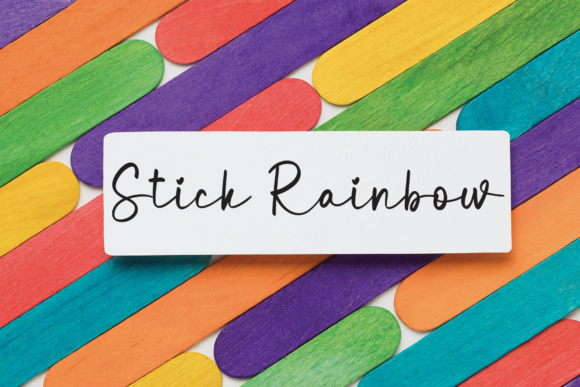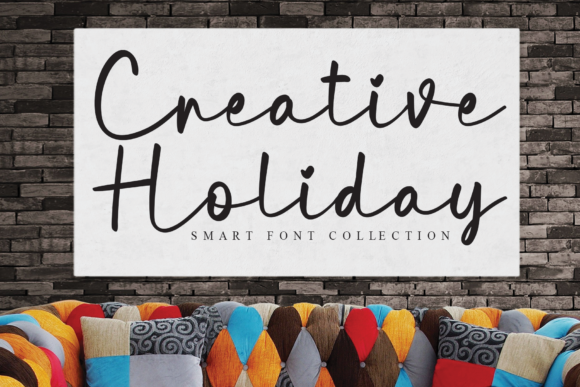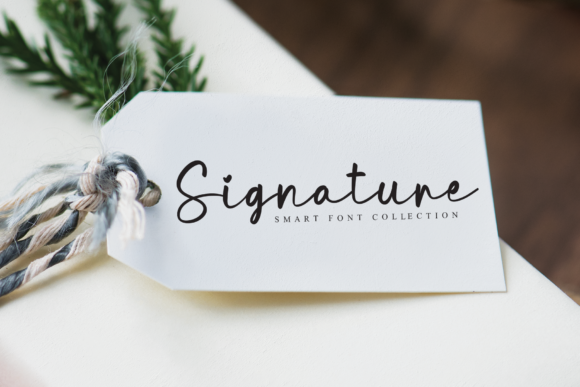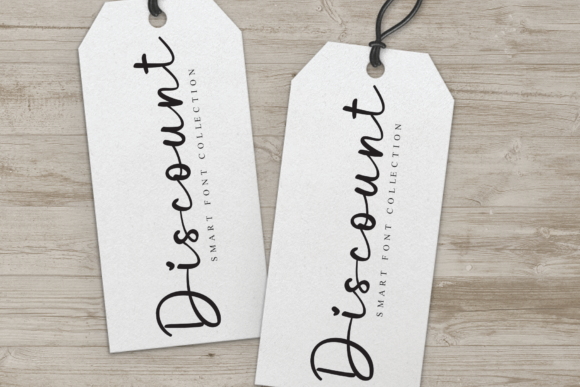
Introducing Farmhouse Font: The Whimsical Script Font for a Relaxed Theme
Are you a designer or crafter looking for a font that can add a touch of whimsy and relaxation to your creations? Look no further than Farmhouse Font, a lovely script font that is perfect for a variety of projects. With its relaxed theme and elegant style, Farmhouse Font is an incredibly versatile asset that can elevate any creation, regardless of the topic.
Farmhouse Font is a script font that is designed to evoke a sense of calmness and serenity. Its relaxed theme makes it perfect for projects that require a laid-back and casual approach, such as crafting, blogging, or social media graphics. The font features beautiful, flowing lines and a charming style that is sure to capture the attention of your audience.
- Whimsical script font: Farmhouse Font is a script font that features a whimsical and playful style, making it perfect for projects that require a touch of personality.
- Relaxed theme: The font’s relaxed theme makes it ideal for projects that require a casual and laid-back approach.
- Elegant style: Despite its playful nature, Farmhouse Font has an elegant style that makes it suitable for a variety of projects, from crafting to blogging.
- Versatile: Farmhouse Font can be used for a wide range of projects, including invitations, greeting cards, social media graphics, and more.
Why Choose Farmhouse Font?
There are many reasons why Farmhouse Font is an excellent choice for designers and crafters. Here are just a few:
- Adds a personal touch: Farmhouse Font’s whimsical style adds a personal touch to any project, making it perfect for crafters and small business owners.
- Easy to read: Despite its playful nature, Farmhouse Font is easy to read, making it perfect for body text and headlines.
- Customizable: Farmhouse Font can be customized to fit your project’s needs, making it a versatile asset for your font library.
- Unique: Farmhouse Font’s unique style sets it apart from other fonts, making it perfect for designers and crafters who want to stand out.
How to Use Farmhouse Font
Farmhouse Font can be used for a wide range of projects, including:
- Invitations: Use Farmhouse Font to create beautiful and whimsical invitations for weddings, baby showers, and other special occasions.
- Greeting cards: Add a personal touch to your greeting cards with Farmhouse Font’s playful and elegant style.
- Social media graphics: Use Farmhouse Font to create eye-catching social media graphics that will capture the attention of your audience.
- Blogging: Add a touch of whimsy to your blog posts with Farmhouse Font, perfect for lifestyle, crafting, and food blogs.
Here are a few tips and tricks for getting the most out of Farmhouse Font:
- Pair with other fonts: Farmhouse Font pairs well with other fonts, such as sans-serif fonts, to create a unique and visually appealing combination.
- Experiment with colors: Farmhouse Font looks great in a variety of colors, from bright and bold to soft and pastel.
- Use for headlines and body text: Farmhouse Font is easy to read, making it perfect for both headlines and body text.
Farmhouse Font is a whimsical script font with a relaxed theme that is perfect for designers and crafters. Its elegant style and versatile nature make it an incredibly asset to your font library, and its unique style sets it apart from other fonts. Whether you’re creating invitations, greeting cards, social media graphics, or blog posts, Farmhouse Font is sure to elevate your creations and add a touch of personality to your projects.